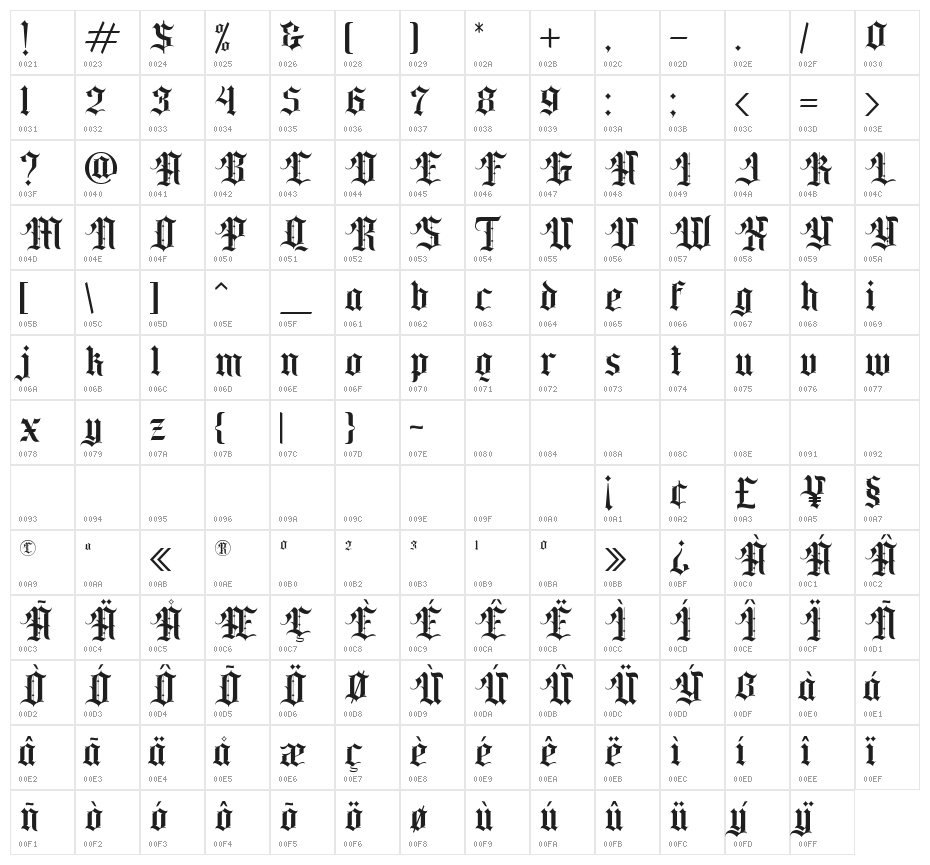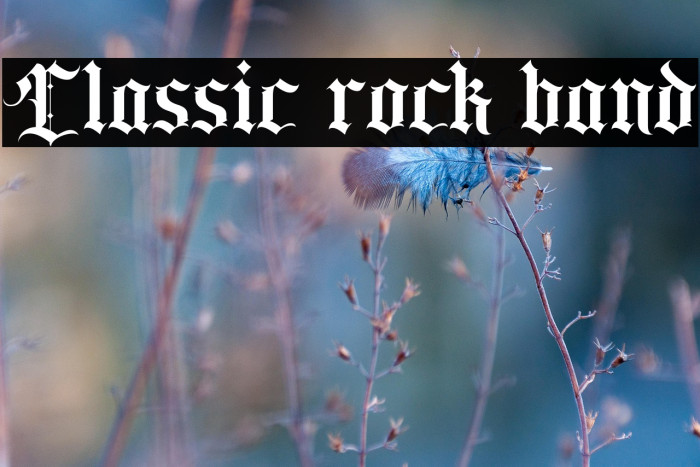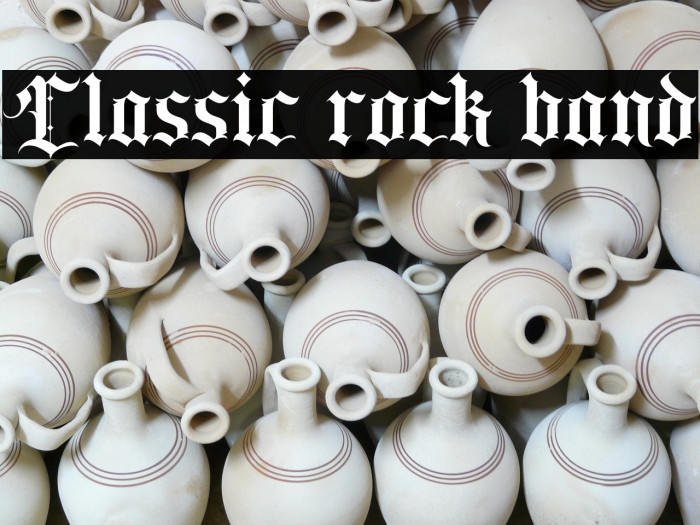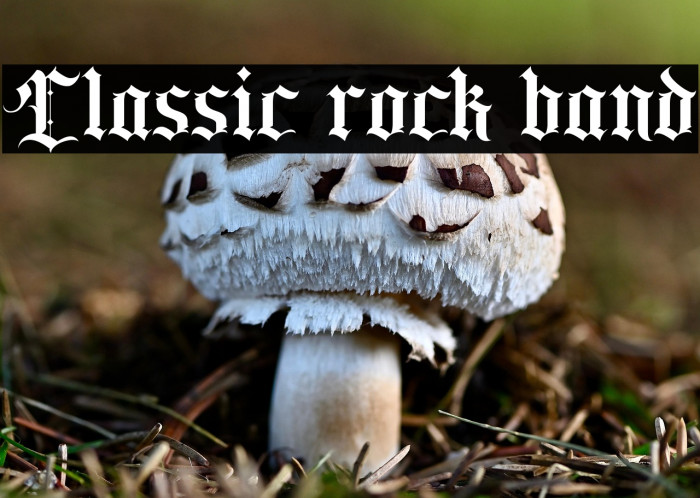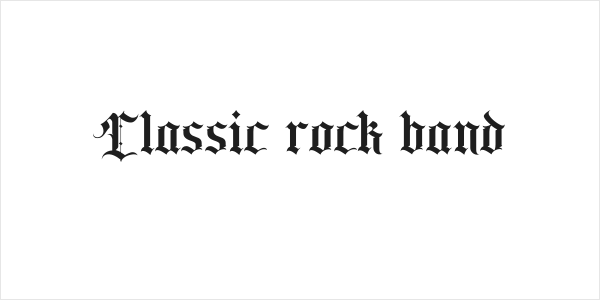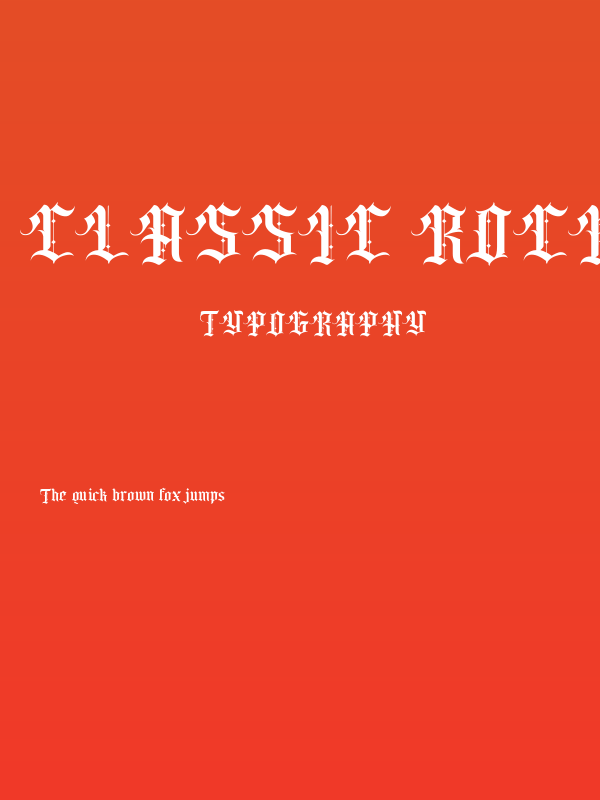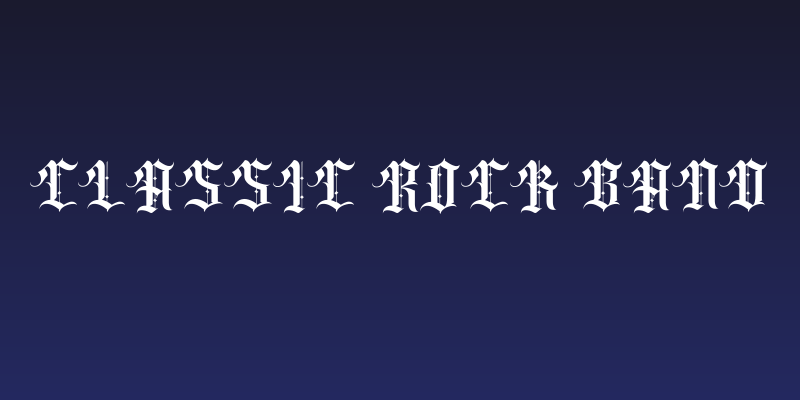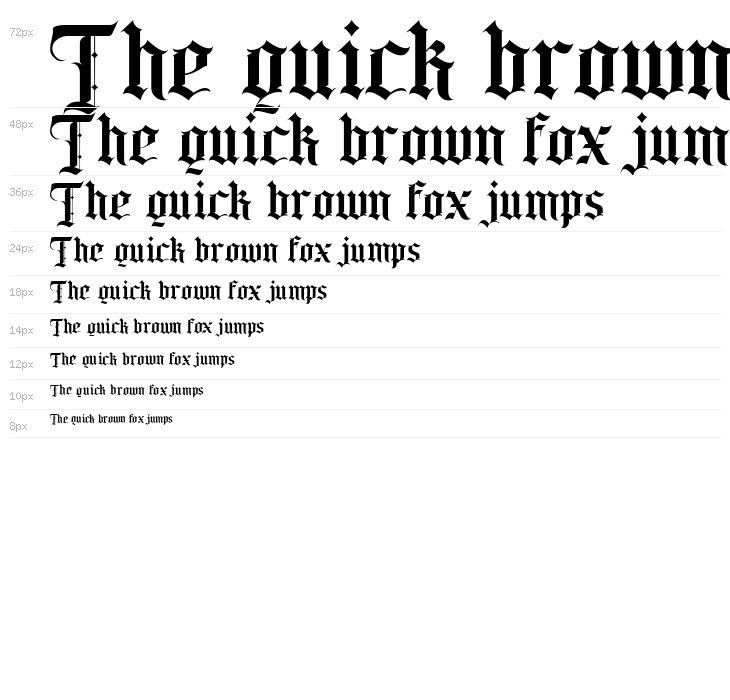
Classic rock band Font
Classic rock band Description
This font embodies the classic elegance and intricate detailing of traditional Blackletter styles. Each character is crafted with sharp, angular lines and dramatic flourishes, evoking a sense of historical grandeur and sophistication. The uppercase letters are particularly ornate, with elaborate serifs and decorative elements that enhance their visual impact. The lowercase letters maintain a consistent style, offering a harmonious blend of readability and artistic flair. The numerals and special characters are equally well-designed, ensuring a cohesive look across all text elements. This font is perfect for projects that require a touch of vintage charm and a bold, authoritative presence.
| Proposed Projects | Ideal for vintage-themed designs, historical documents, logos, and branding that require a bold, authoritative presence. |